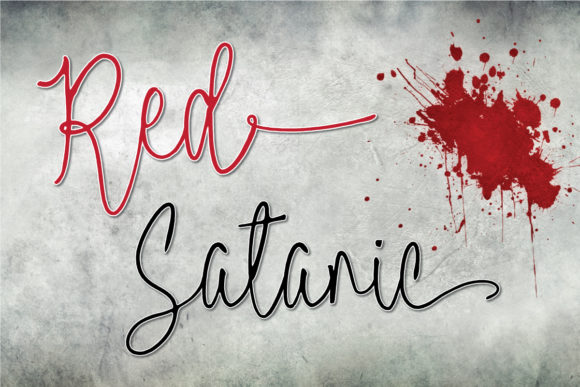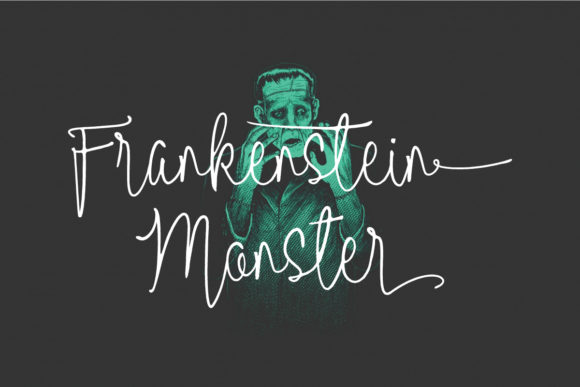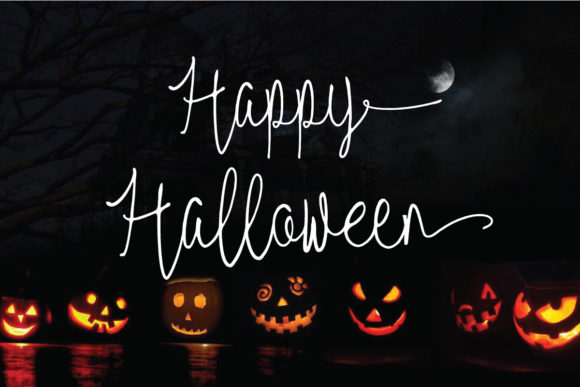
Red Satanic Font
About Red Satanic Font
Red Satanic is a unique and delicate script font with a lovely twist. Fall in love with its romantic charm and add it to each of your favorite designs!